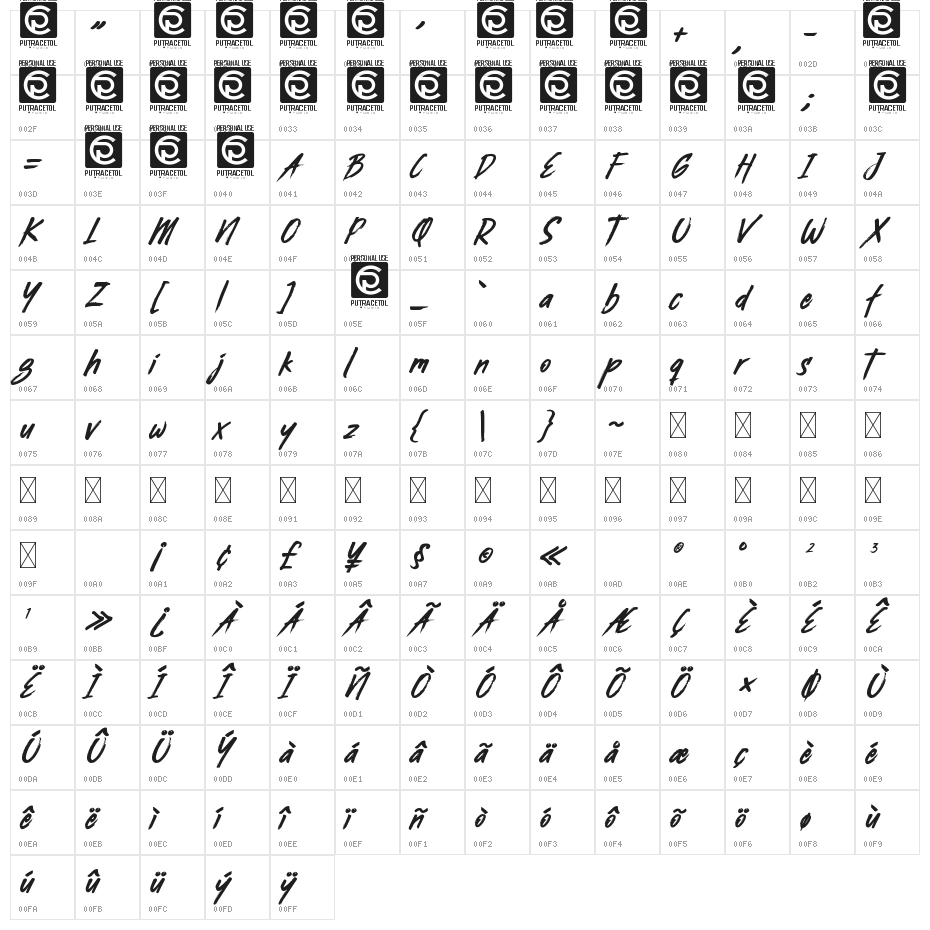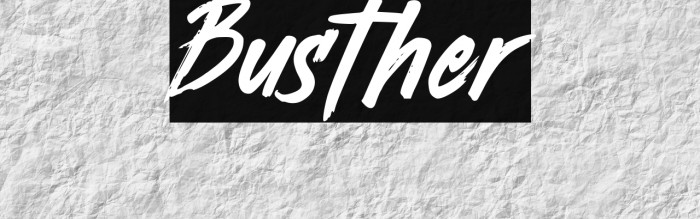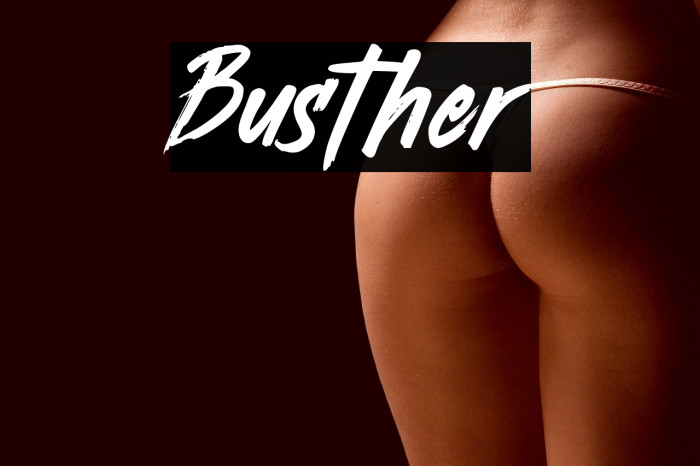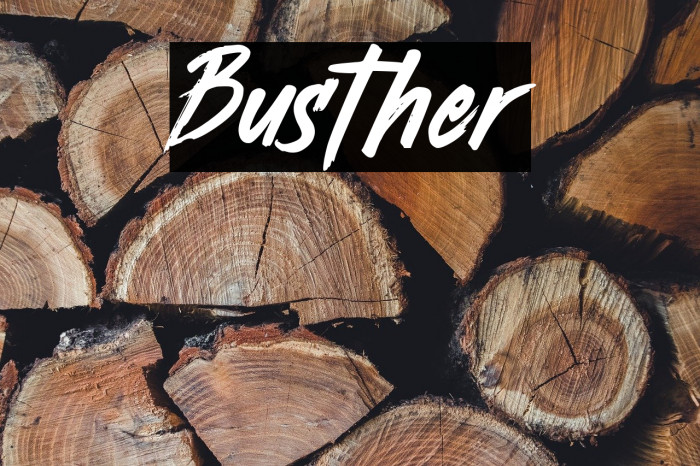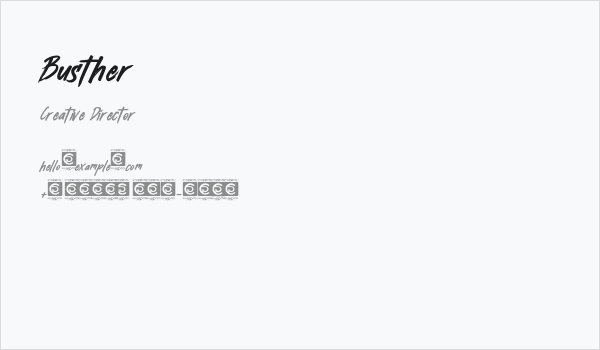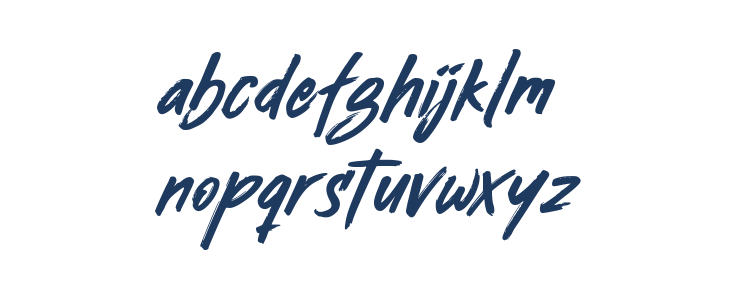
Busther Font
Busther Description
This font features a bold and dynamic script style with a brush-like appearance, giving it an energetic and expressive look. The strokes are thick and varied, creating a sense of movement and fluidity. The uppercase letters are particularly striking, with dramatic angles and a slightly slanted orientation. The lowercase letters maintain the same lively character, with smooth connections and a consistent flow. This font is ideal for projects that require a personal touch or a creative flair, such as branding, posters, or artistic designs.
| Use Case | Logos, Headlines, Artistic designs |
| Proposed Projects | Ideal for branding, posters, artistic designs, and any project needing a personal or creative touch. |